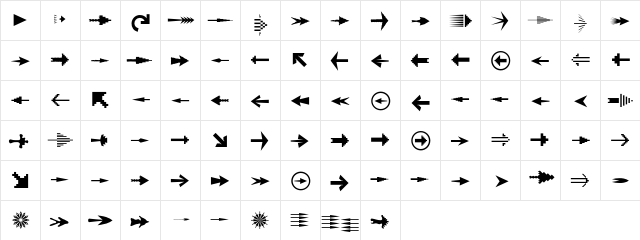
Fleches LeftRight
Design Context for Fleches Typeface
Fleches is a composed and adaptable typeface that performs quietly and consistently across a wide range of design contexts.